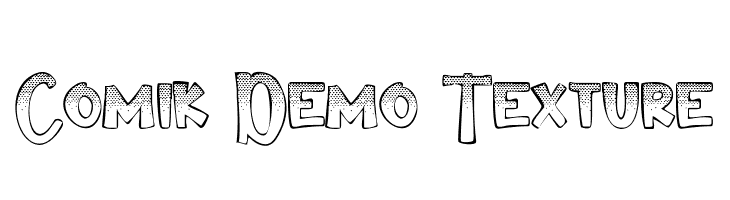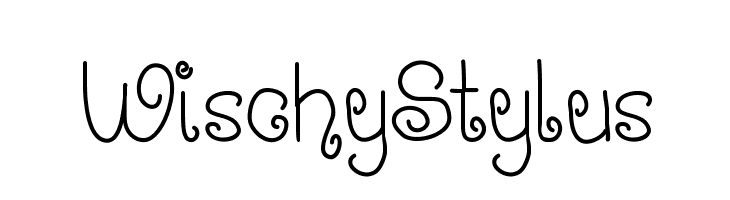
A bold, distressed font with a rugged, textured appearance.
A bold, playful font with chunky, irregular letterforms and a hand-drawn feel.
A bold, condensed font with modern, sleek lines and high legibility.
A playful, rounded handwritten font with a friendly and whimsical style.
A bold, 3D italic font with a textured, industrial look.
A bold, decorative font with a layered outline effect, perfect for creative projects.
A bold, italic font with sharp angles and high contrast, perfect for dynamic designs.
Bold, playful emoticon and symbol icons with thick lines and high contrast.